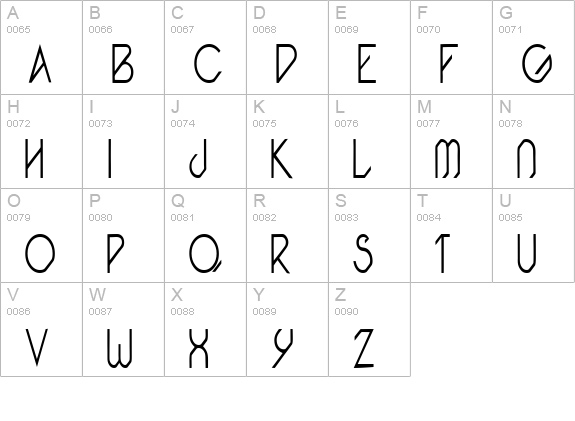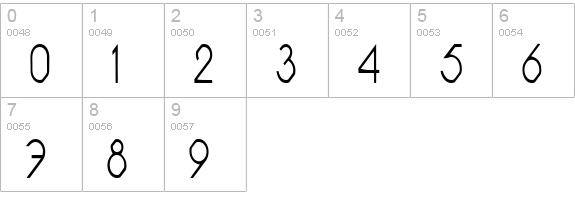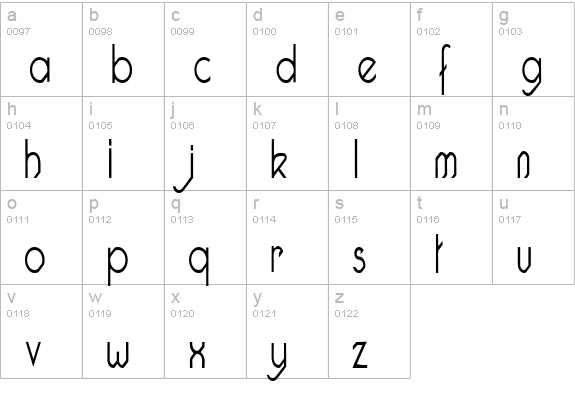
Pacotillenarrow light is a refined, elegant variant in the Pacotillenarrow typeface family \xE2\x80\x94 well suited to elegant body text, refined sub-headings, and luxury branding.
Pacotillenarrow light font is a modern and sleek typeface that exudes elegance and sophistication. With its slender and refined letterforms, this font is perfect for adding a touch of class to any design project. The versatility of Pacotillenarrow light font makes it suitable for various applications, from branding to editorial design. The best part about Pacotillenarrow light font is that it is available for free download at FontsMarket.com. This means you can easily access this stylish font without any cost, making it a valuable asset for designers looking to elevate their work without breaking the bank. Don't miss out on the opportunity to enhance your projects with the distinctive charm of Pacotillenarrow light font - download it for free today!